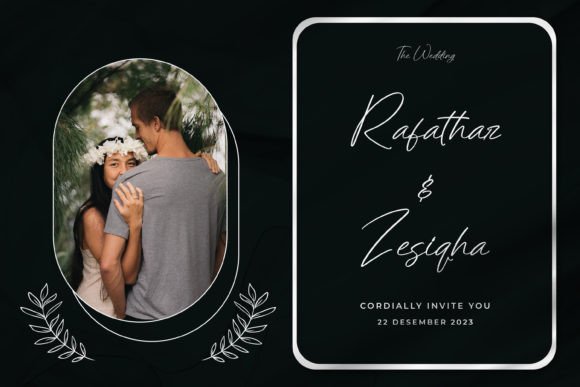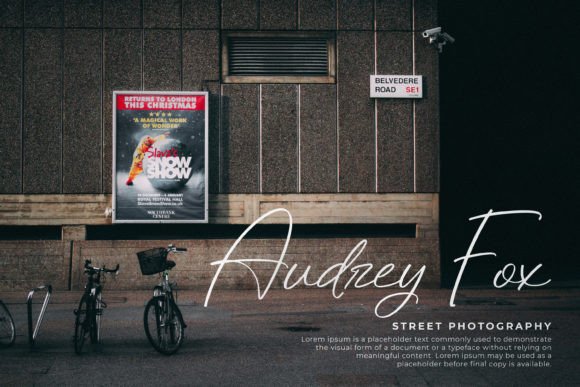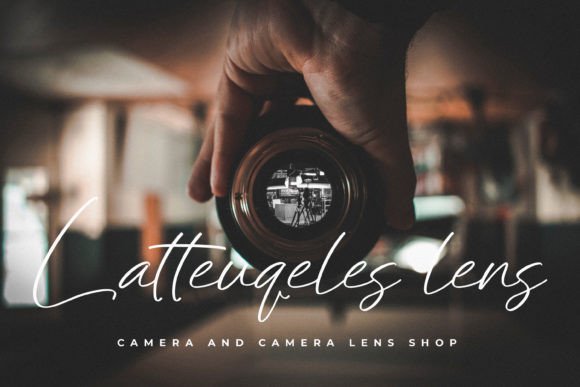
The Amauqatte Font: A Designer’s New Best Friend
I’ll never forget the time I was working on a branding project for a boutique coffee shop. My client wanted a logo that exuded warmth, coziness, and a touch of sophistication. I spent hours scouring font libraries, but nothing seemed quite right. That was until I stumbled upon the Amauqatte font. 💡
This beautiful handwritten script font has been a game-changer for my design projects, and I’m excited to share my experience with you. Whether you’re a designer, crafter, or creative hobbyist, Amauqatte is definitely worth adding to your font collection.
• ✨ Elegant, flowing script that’s perfect for logos, branding, and high-end designs
• 💫 Beautifully crafted to add a touch of sophistication to any project
• 🎨 Versatile and adaptable to various design styles and industries
While Amauqatte is an exceptional font, there are a few things to keep in mind:
• ⚠️ Some characters may require manual kerning for optimal spacing
• 🤔 Limited availability of certain special characters or glyphs
3. Experiment with OpenType features, such as ligatures and stylistic alternates, to add visual interest to your design
The Story Behind Amauqatte
Amauqatte was designed by a talented typographer who drew inspiration from traditional calligraphy and handwritten scripts. The font’s creator aimed to craft a beautiful, elegant script that would add a touch of sophistication to any design project.
Q: What type of projects is Amauqatte suitable for?
A: Amauqatte is perfect for logos, branding projects, homewares designs, product packaging, mugs, quotes, posters, shopping bags, t-shirts, covers books, business cards, invitation cards, greeting cards, labels, photography, watermarks, and special events.
Q: Is Amauqatte available in different font weights or styles?
A: Amauqatte comes in a range of font weights and styles, allowing you to experiment with different looks and feels.